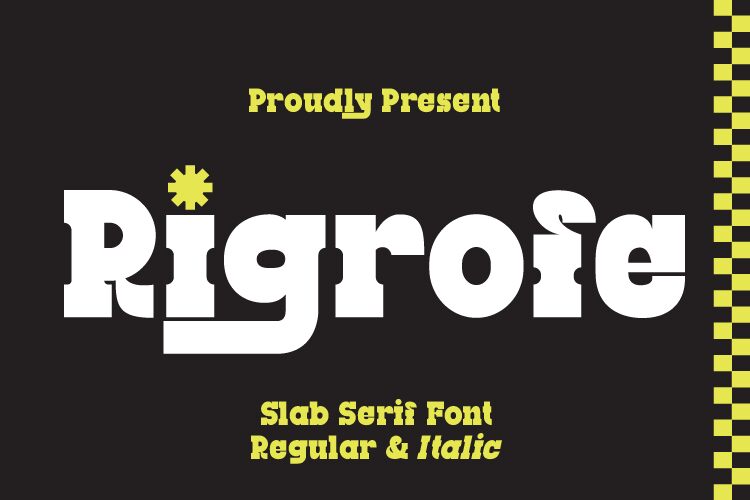
Rigrofe
Rigrofe, a bold and distinctive display font created by Rvandtype, exudes a captivating retro-inspired aesthetic with its slab serif styling. The striking letterforms and robust weight command attention, conveying a sense of strength and timelessness. This font's unique character and visual impact make it an alluring choice for designers seeking to make a lasting impression in their projects.
Rigrofe's versatility shines through its ability to elevate a wide range of design applications, from striking headline text to impactful branding elements. Its bold presence lends itself well to eye-catching headlines, attention-grabbing logos, and dynamic poster designs, while its retro-infused charm can also enhance the charm of vintage-inspired layouts or nostalgic product packaging.